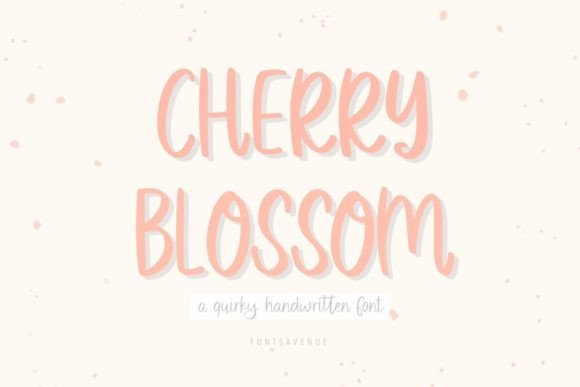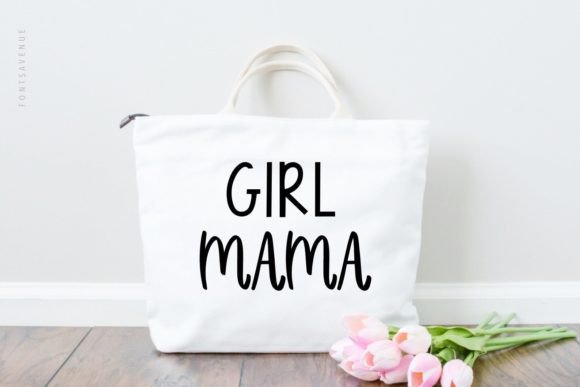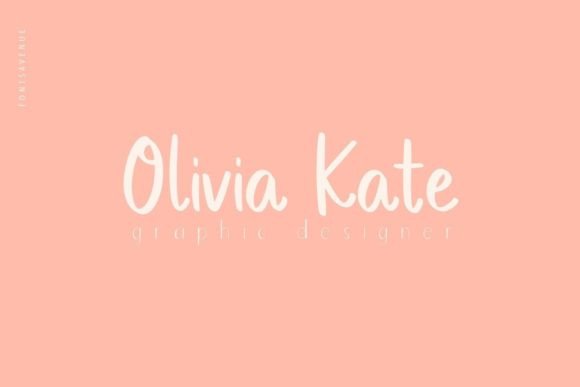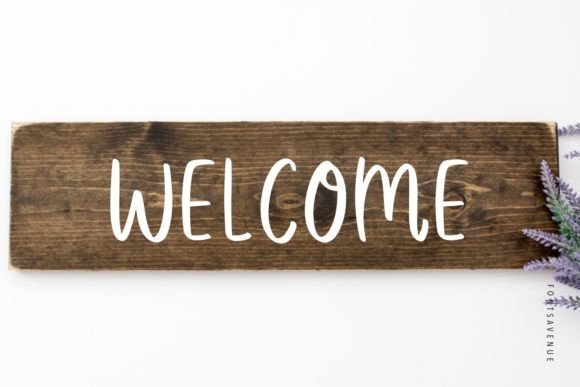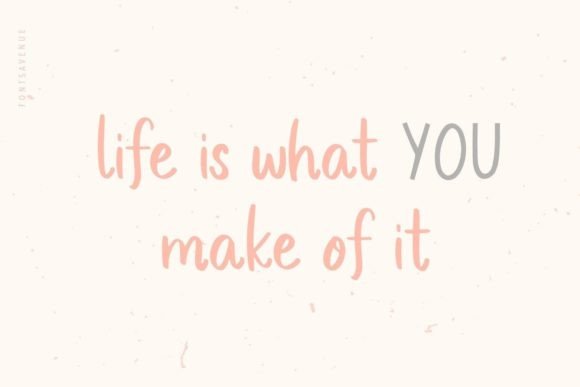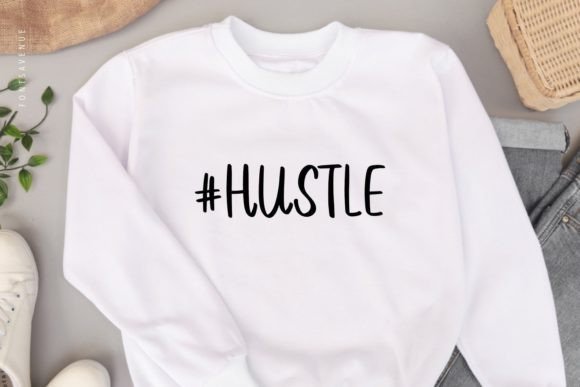
About Cherry Blossom Font
Cherry Blossom is a whimsical and curly handwritten sans serif font, crafted for a variety of creative applications. Its playful and organic design makes it well-suited for invitations, Cricut designs, stickers, t-shirt designs, quotes, Procreate projects, and more.
The curly elements of Cherry Blossom add a touch of elegance and charm, making it ideal for projects where you want to convey a lighthearted and artistic feel. The sans serif nature of the font brings a modern and clean look, ensuring versatility across different design contexts.
Whether you’re working on digital or print projects, Cherry Blossom can enhance your designs with its unique and delightful style. Its adaptability makes it a great choice for a wide range of creative endeavors, allowing you to infuse your projects with a playful and handwritten aesthetic.
In summary, Cherry Blossom is not just a font; it’s a creative tool designed to bring a curly, handwritten charm to your designs. Whether applied to invitations, stickers, or digital artwork, this sans serif font ensures that your creations exude a whimsical and artistic vibe, making it a valuable asset in your design toolkit.